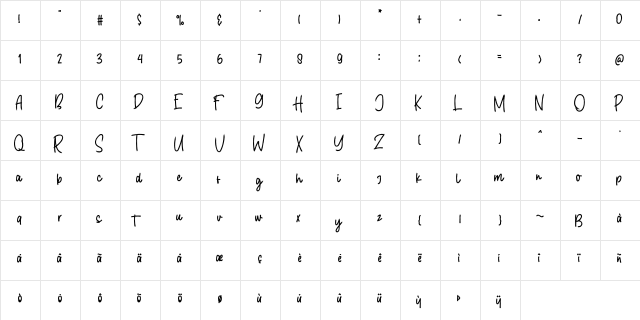
Salyka Brush
| Style | Brush |
| Foundry | Crump Hand |
| Designer | Stefie Justprince |
Design Context for Salyka Typeface
Salyka brings a calligraphic fluidity to the page — its connecting strokes and expressive curves give it an unmistakably human quality.